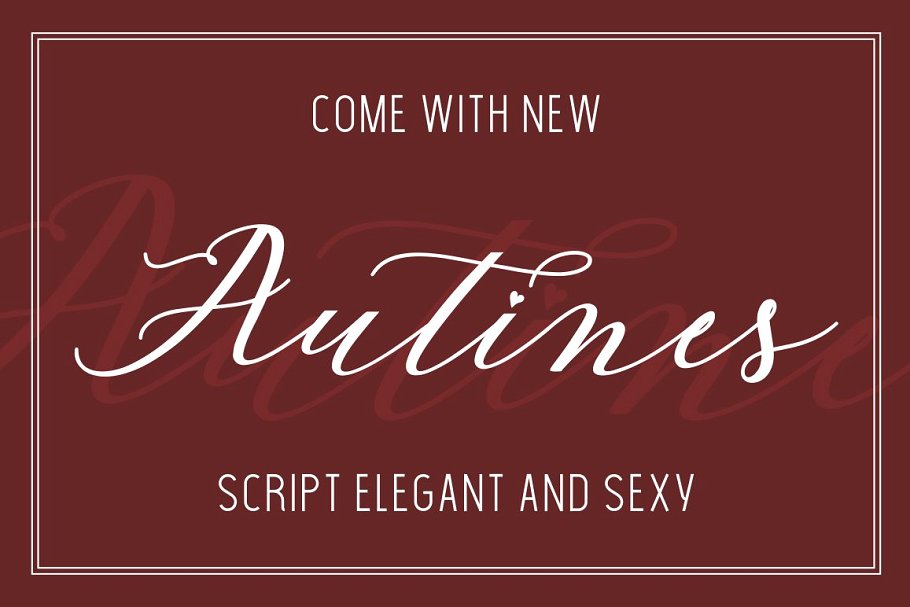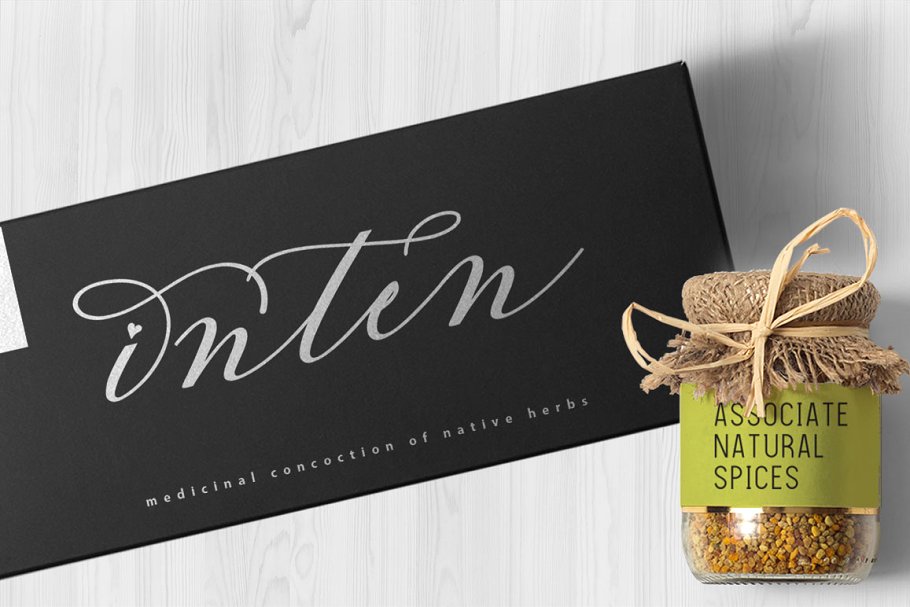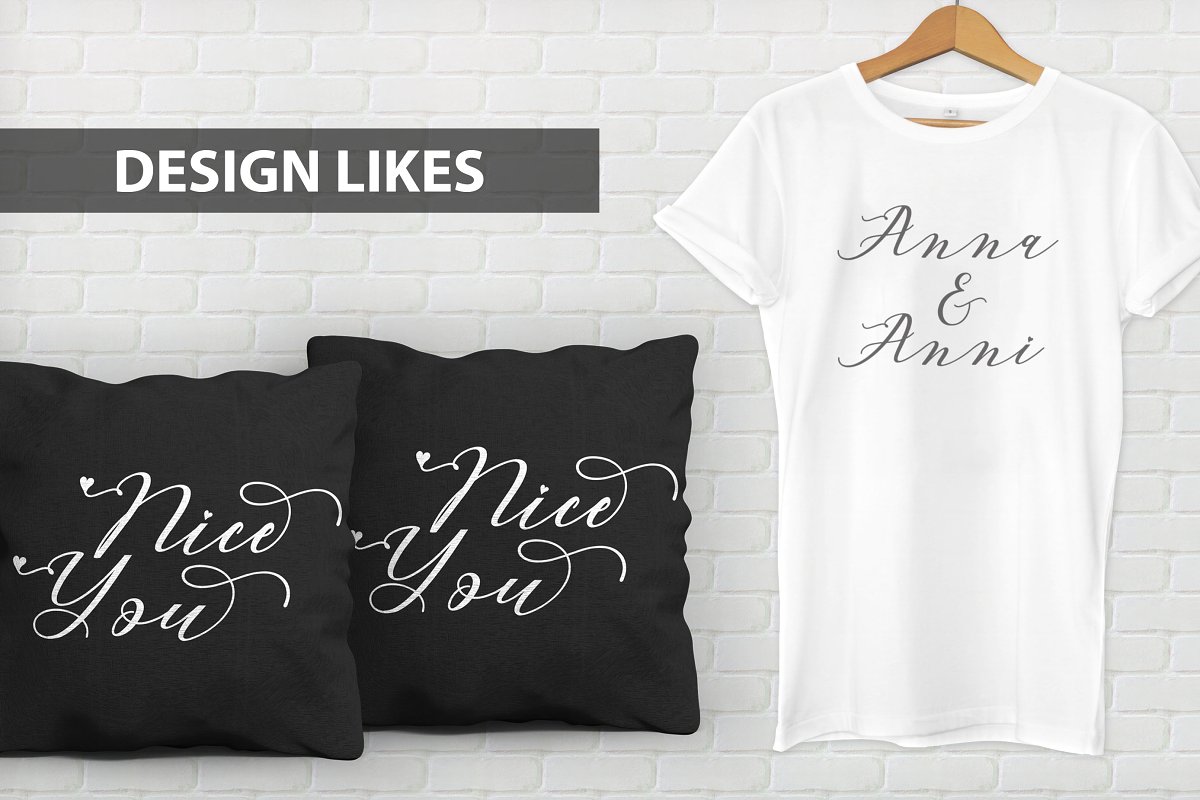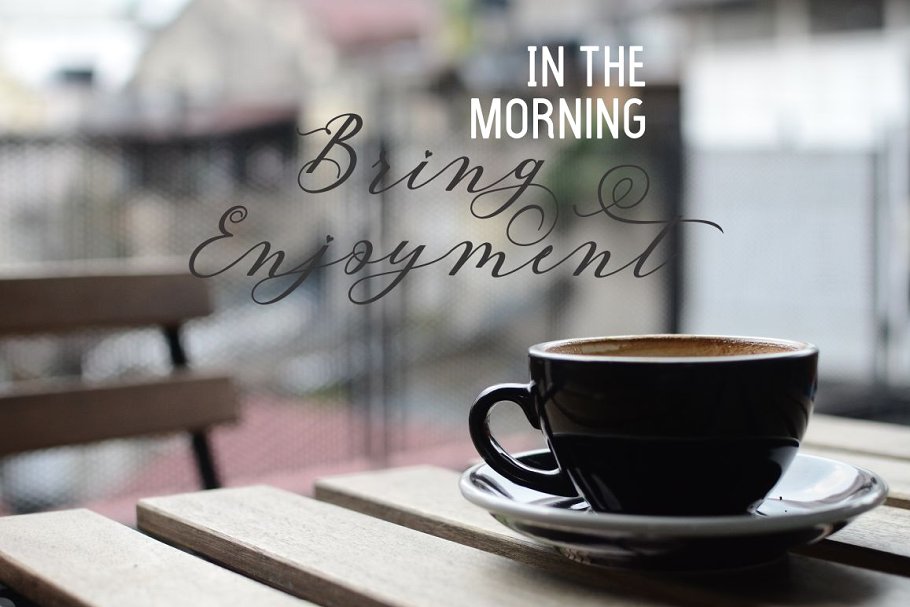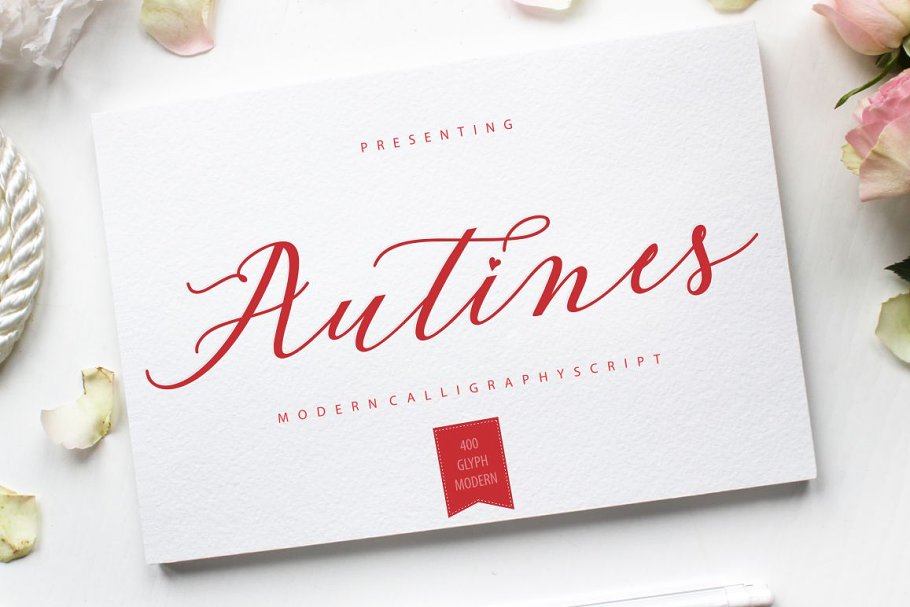
Autines Script Font
A new modern calligraphy script font. Very great, it was my original feel. You want to make a greeting card or a package design, or even a brand identity, craft design? Feel free to play with all the patterns and shape! Introducing Autines Font! Autines is a modern feminine font, every letter has been carefully crafted to make your text look beautiful. With a modern script style, this font will be perfect for projects: photography, watermarks, quotes, blog headers, posters, weddings, branding, logos, fashion, clothing, letters, invitations, stationery…